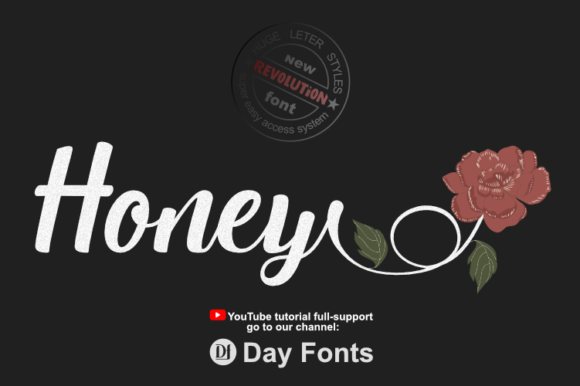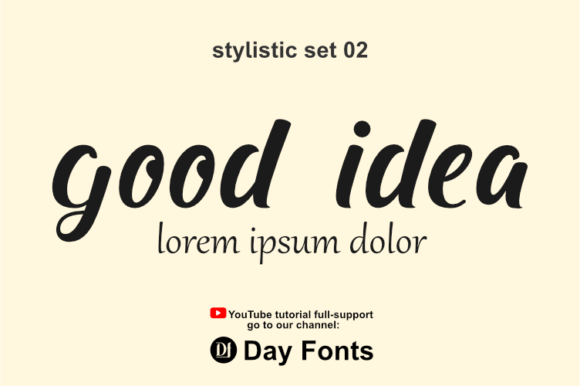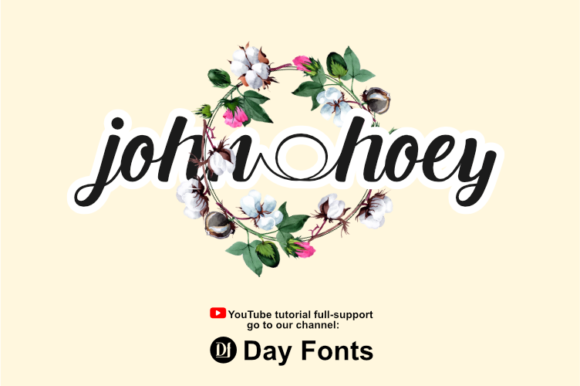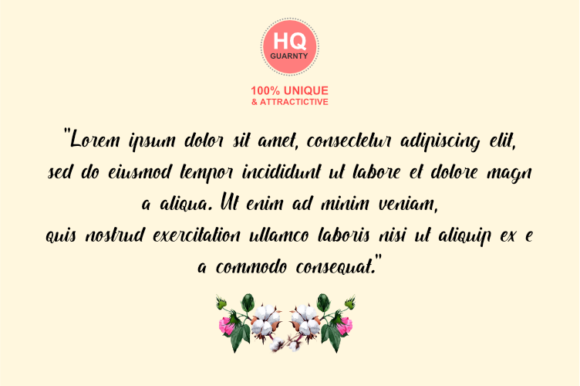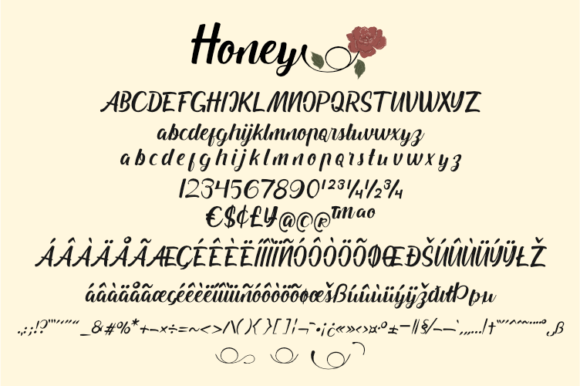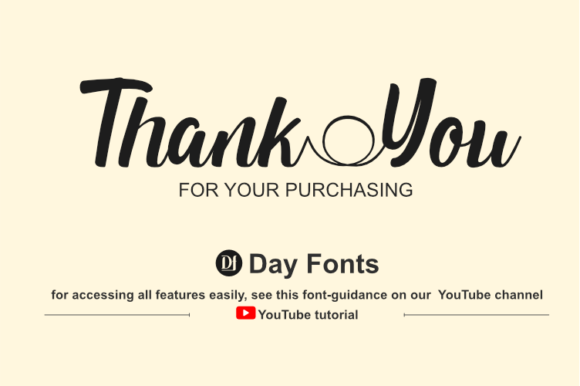
Honey Font
About Honey Font
Honey is a chic and awesome script font. The unique characters of this typeface emanate sophistication and elegance, and its stylish alternates and ligatures make this font a perfect match for any project! This font is PUA encoded which means you can access all of the glyphs and swashes with ease!